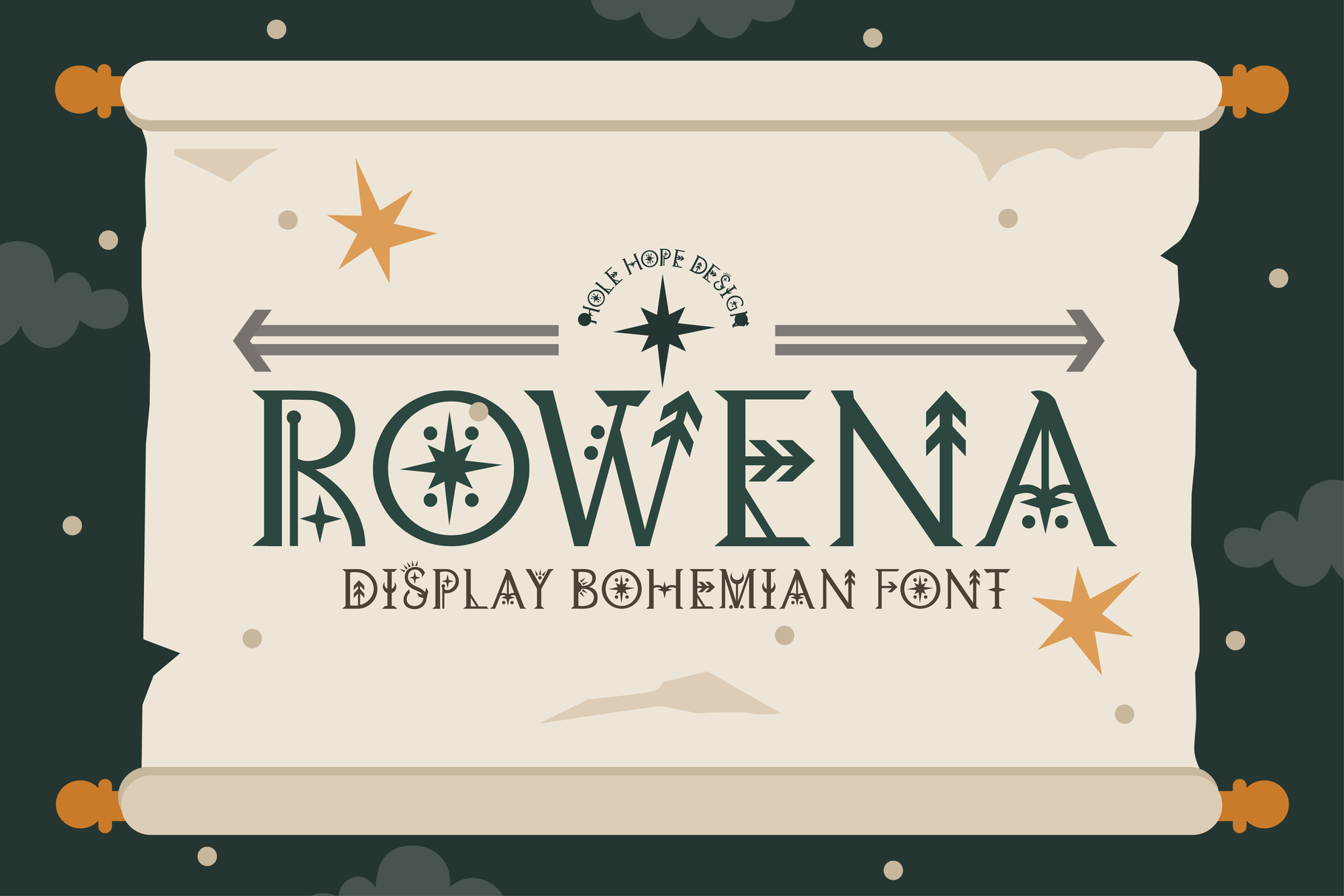
Rowena | Display Bohemian Font
Step into the enchanting world of Rowena Display Bohemian, a font that embodies the free-spirited essence of Folk Art and bohemian aesthetics. With its hand crafted, organic letterforms and decorative charm, Rowena captures the soul of traditional artistry while remaining effortlessly modern. Rowena Display Bohemian brings the spontaneity of hand-drawn art to life. Let your creativity roam free with Rowena where tradition meets boho elegance!